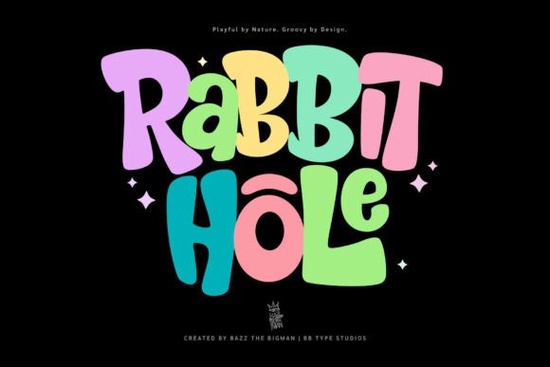
When you're looking for a font that can add a playful and vibrant touch to your designs, the Rabbit Hole Font is a fantastic choice. This bold display font skillfully blends quirky charm with a lively retro vibe, making it perfect for projects aimed at children and creative branding.
Why Choose Rabbit Hole Font?
Rabbit Hole Font stands out with its hearty, organic structure and exuberant design. It's not just about adding a fun element; this font also has the strength to capture and command attention. Whether you're designing posters, packaging, or merchandise, Rabbit Hole Font can bring an inviting and amusing aura to your work.
How Does Rabbit Hole Font Complement Different Projects?
Rabbit Hole Font is versatile and can be used in a variety of creative projects. Here are a few examples:
- Children's Books and Educational Materials: The playful and whimsical nature of Rabbit Hole Font makes it ideal for children's books, educational materials, and other kid-friendly content. Its engaging style can help keep young readers interested and entertained.
- Creative Branding: For brands that want to project a fun and approachable image, Rabbit Hole Font can be a great fit. Use it for logos, business cards, and other branding elements to create a memorable and appealing look.
- Posters and Advertisements: The bold and eye-catching design of Rabbit Hole Font makes it perfect for posters and advertisements. It can help your message stand out and grab the viewer's attention.
- Packaging and Merchandise: Add a unique and playful touch to your product packaging and merchandise with Rabbit Hole Font. It can make your products more appealing and distinctive on the shelf or in the store.
What Makes Rabbit Hole Font Unique?
Rabbit Hole Font is designed with a vivacious rhythm and an intentional, quirky charm. Unlike some fonts that may feel too serious or plain, Rabbit Hole Font brings a lively and energetic feel to any design. Its organic structure and retro vibe give it a distinct personality that can enhance your visual storytelling.
How Can You Use Rabbit Hole Font Creatively?
To get the most out of Rabbit Hole Font, consider these creative uses:
- Combine with Other Fonts: Pair Rabbit Hole Font with complementary fonts to create a balanced and visually interesting design. For example, you could use a clean, simple font like Mila Font for body text and Rabbit Hole Font for headings and titles.
- Experiment with Colors and Textures: Play around with different colors and textures to see how they interact with Rabbit Hole Font. Bright, bold colors can enhance its playful nature, while subtle textures can add depth and interest.
- Create Themed Graphics: Use Rabbit Hole Font to create themed graphics for events, holidays, or special occasions. Its playful and engaging style can make your designs more festive and fun.
Is Rabbit Hole Font Right for Your Project?
Whether you're a designer, crafter, print-on-demand seller, small business owner, or creative hobbyist, Rabbit Hole Font can be a valuable addition to your toolkit. Its versatility and unique character make it suitable for a wide range of projects. If you're looking for a font that can add a playful and lively touch to your designs, Rabbit Hole Font is definitely worth considering.
Tips for Using Rabbit Hole Font Effectively
- Test Different Sizes and Spacings: Experiment with different sizes and spacings to find the best fit for your design. Sometimes, a slight adjustment can make a big difference in how the font looks and feels.
- Use in Moderation: While Rabbit Hole Font is highly engaging, it's best used in moderation. Too much of a good thing can sometimes overwhelm the viewer. Use it strategically to highlight key elements or add a playful touch.
- Get Feedback: Before finalizing your design, get feedback from others. They might offer insights or suggestions that can help you refine and improve your use of Rabbit Hole Font.
By following these tips, you can make the most of Rabbit Hole Font and create designs that are both playful and impactful. Happy designing!